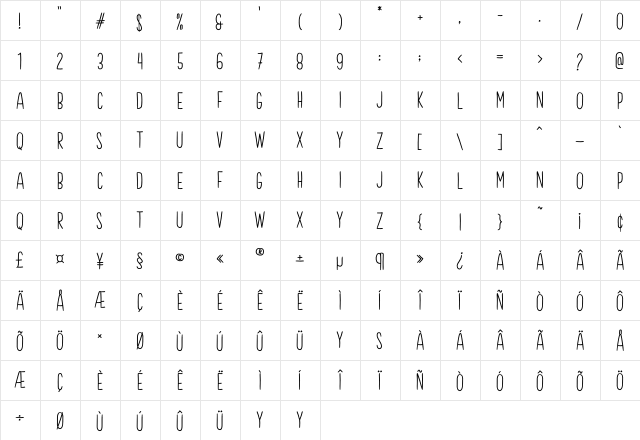
Brook Demo Regular
| Foundry | Factory738 |
| Designer | Wahyu S Rahmawan |
Design Context for Brook Demo Typeface
Brook Demo is a composed and adaptable typeface that performs quietly and consistently across a wide range of design contexts.